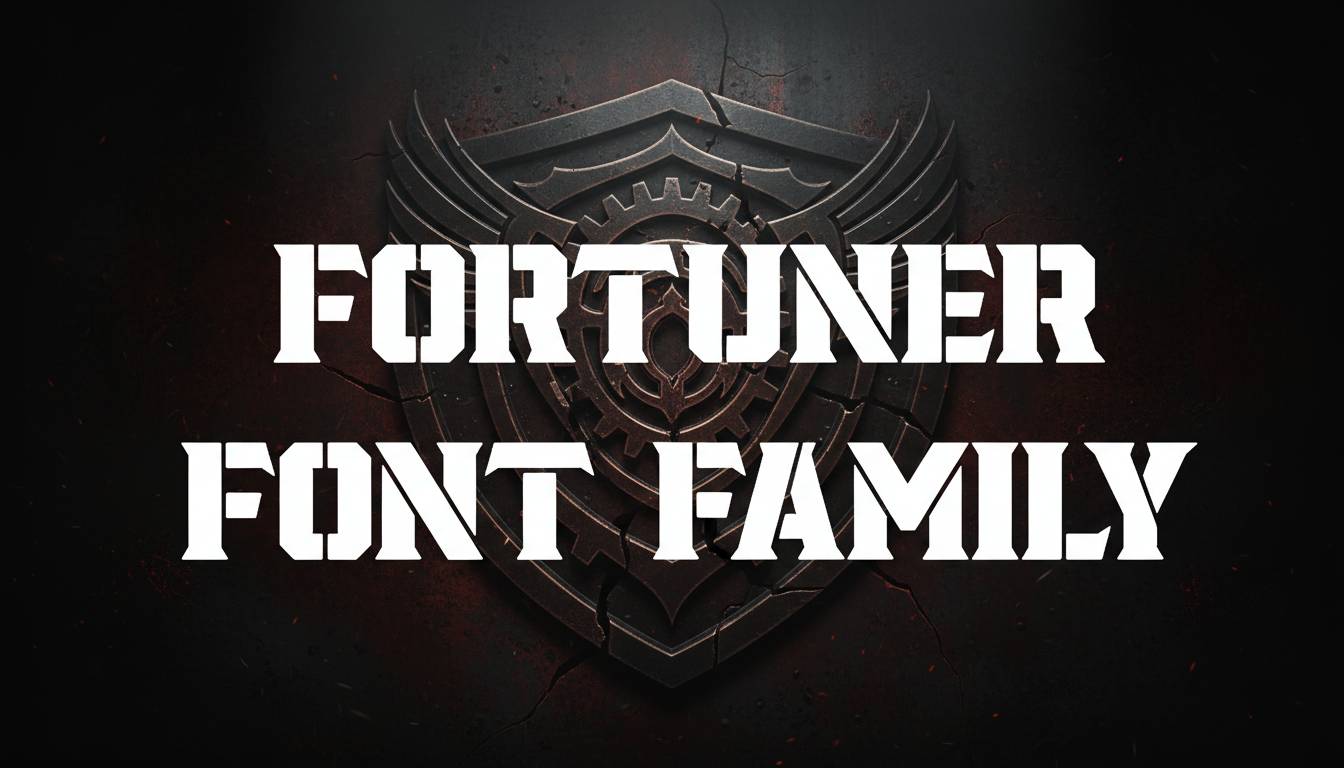
Fortuner Font
Fortuner Font Preview
Fortuner
Fortuner is a fancy font designed by Mukhlis Muhammad and published by Variatype. Bold and full of character, it's built to stand out rather than blend in. You can download it for free and test it with your own words in the preview above.
Fortuner Font Details
- Designer: Mukhlis Muhammad
- Publisher: Variatype
- Font styles: 1 (Heavy)
- Glyphs: 197
What You Can Type With Fortuner
You get every letter from A to Z in both cases and all the numbers from 0 to 9, which means Fortuner can handle full sentences, dates and prices. Everyday marks like &, !, ? and @ are there too. Thanks to its accented letters, it also works for Spanish, French, German, Portuguese and Italian, not just English.
Where Fortuner Works Best
Designers usually reach for fonts like Fortuner when they're making posters, logos and eye-catching headlines. Use it for one standout word or headline and let simpler fonts handle the rest.
Does Fortuner support accented letters?
Yes. Fortuner includes the accented letters needed for Spanish, French, German, Portuguese and Italian, so it works for more than just English.